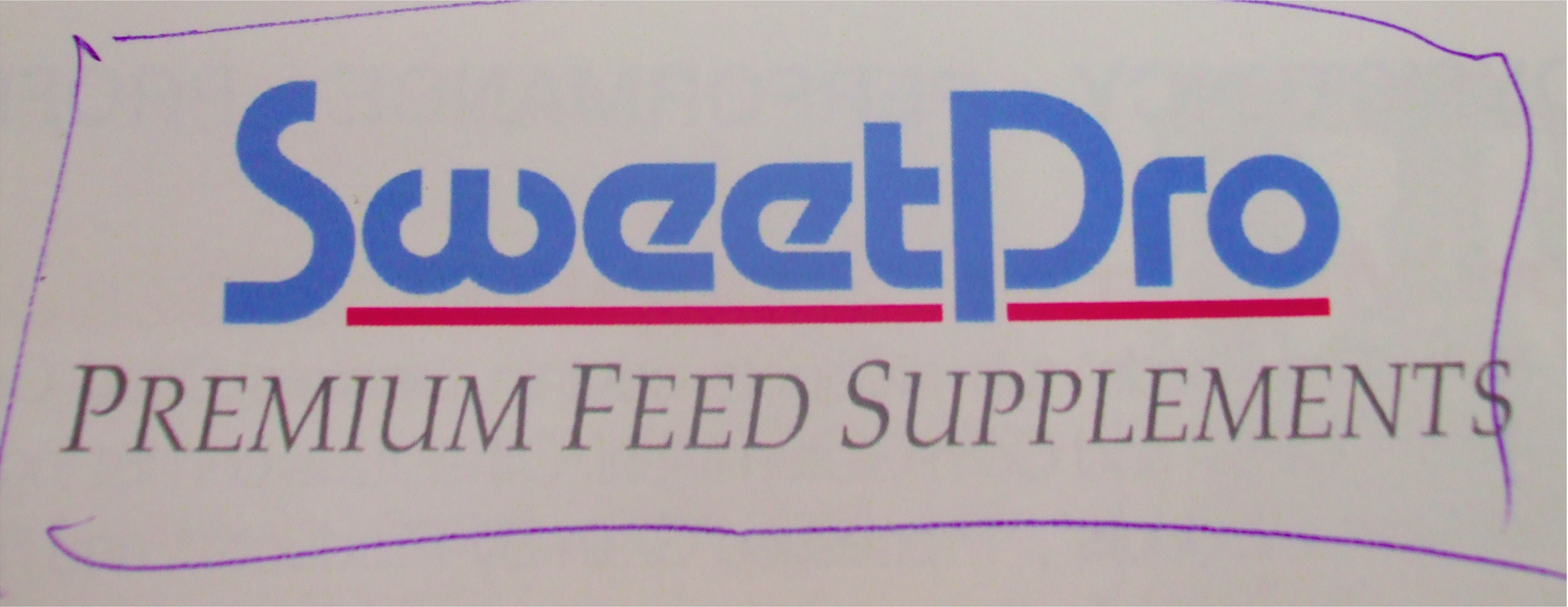
Font Help need help with these fonts
need help with these 2 fonts
The OPTI Manfred font is a knock-off of Motter Tektura. Some of us older folks remember Apple using the typeface on its early products before the Macintosh.
Motter Femina screamed 1970's psychedelic hippie pop culture more successfully than most any other typeface of that age. Candice and Julia Script evoke similar moods but came later in the late 1970's and early 1980's.